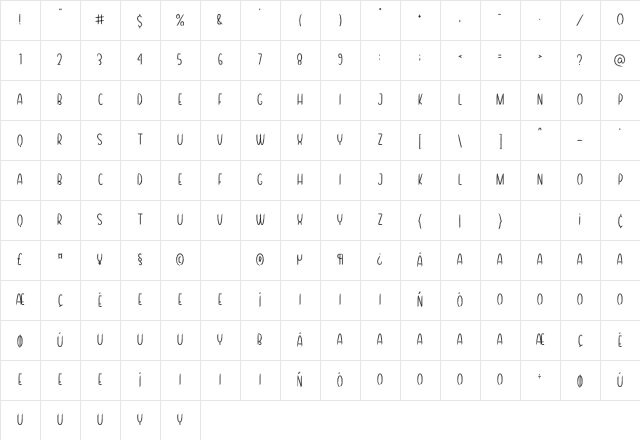
Ghost Movies Regular Free Font
Ghost Movies Regular
Design Context for Ghost Movies
Ghost Movies is a composed and adaptable typeface that performs quietly and consistently across a wide range of design contexts.